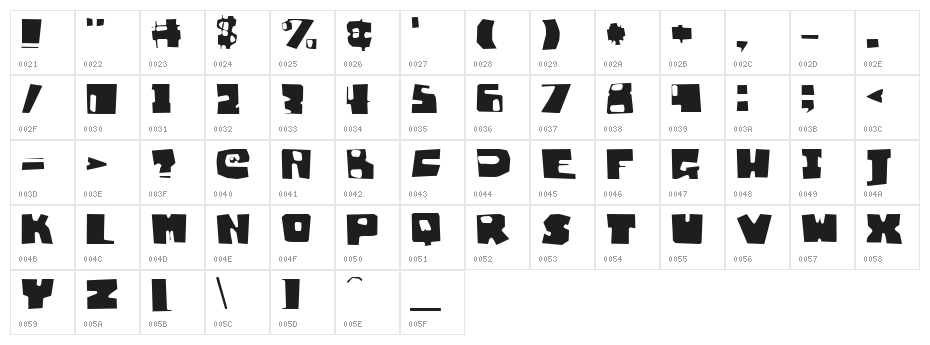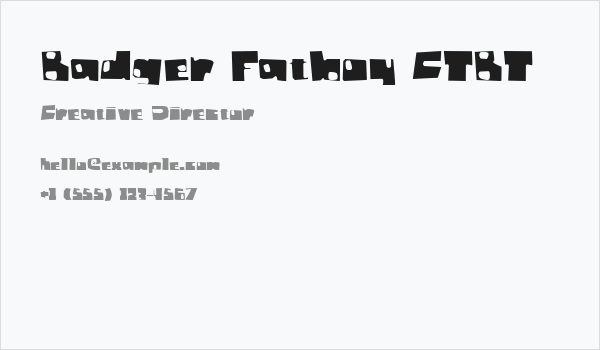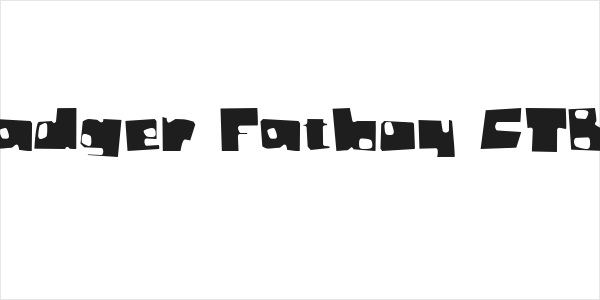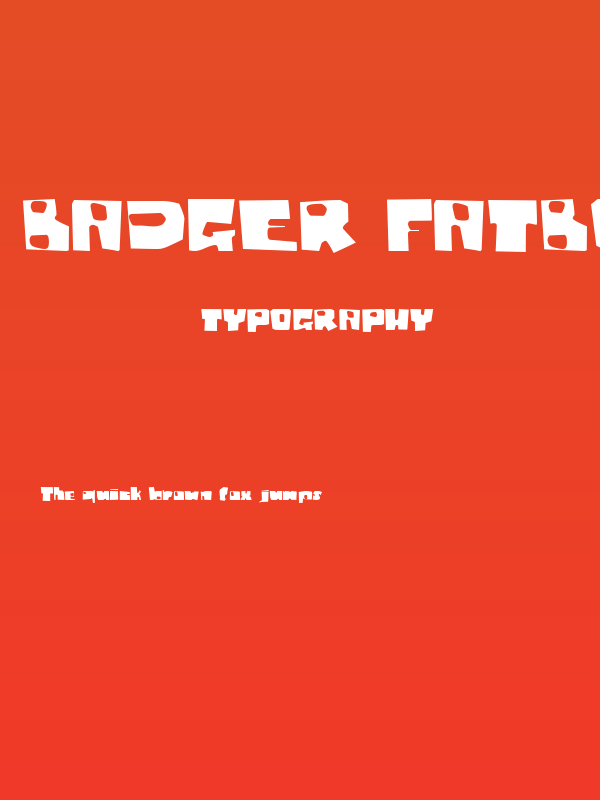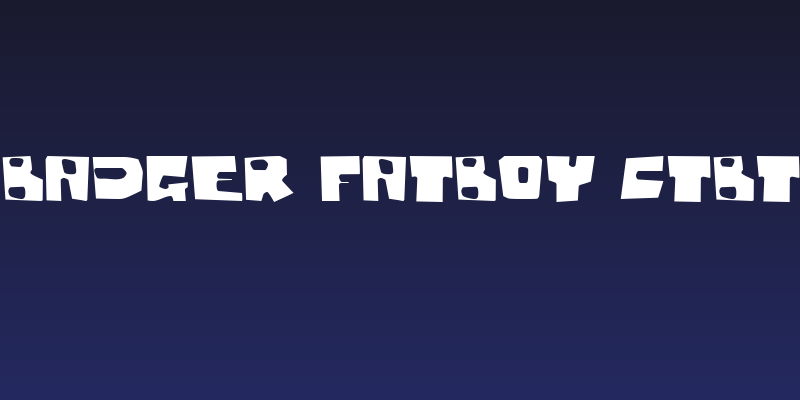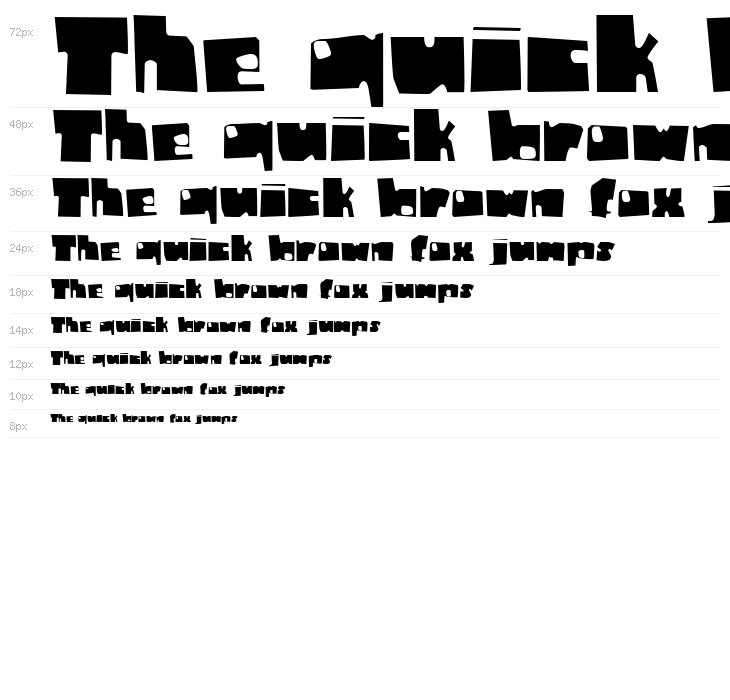
Badger Fatboy CTBT Font
Badger Fatboy CTBT Description
This font features a bold and chunky design with a playful and irregular structure. Each character is uniquely shaped, giving it a distinctive and eye-catching appearance. The letters are heavily stylized with varying thicknesses and unexpected angles, creating a sense of movement and energy. The font's quirky and artistic style makes it stand out, with a strong presence that commands attention. Its boldness and unique character shapes make it ideal for creative projects that require a fun and dynamic look.
| Proposed Projects | Ideal for posters, album covers, children's books, and any creative project that requires a fun and dynamic aesthetic. |